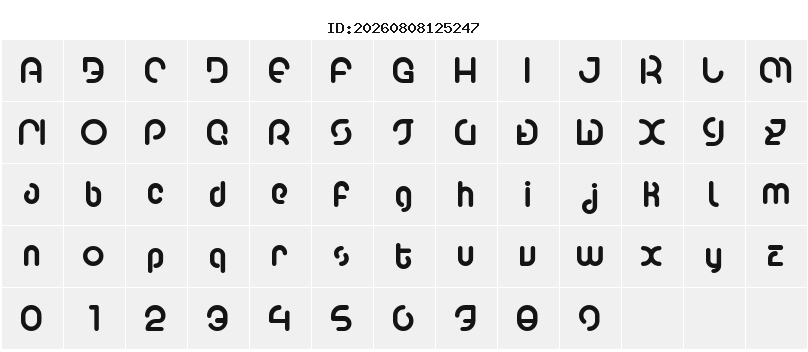
Poo2 Preview
• Font Name: Poo2
• Full Font Name: Poo2
About Poo2.ttf
Poo2.ttf is a modern, elegant sans-serif font designed for ultimate readability and visual harmony. Perfect for branding, headlines, web design, and print materials.